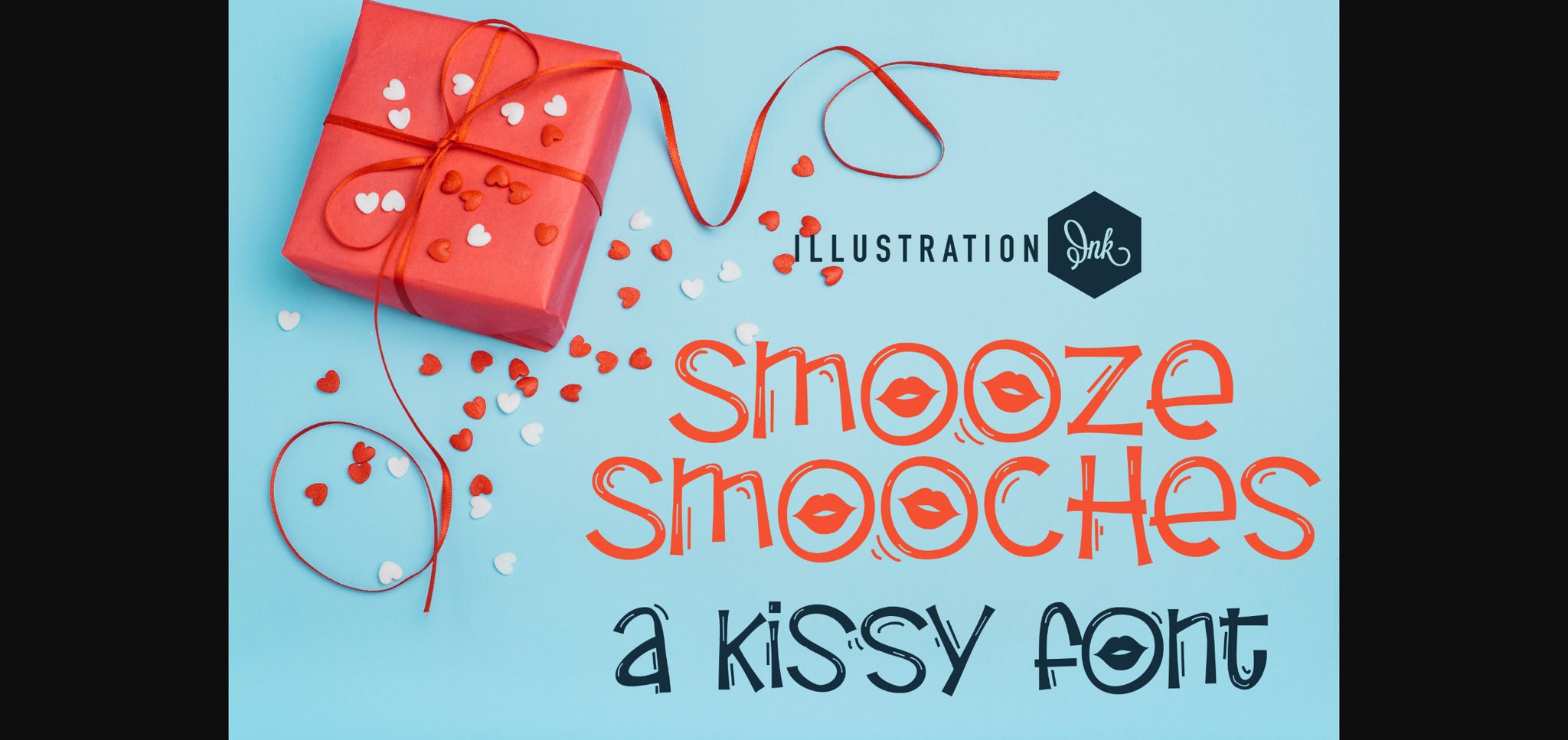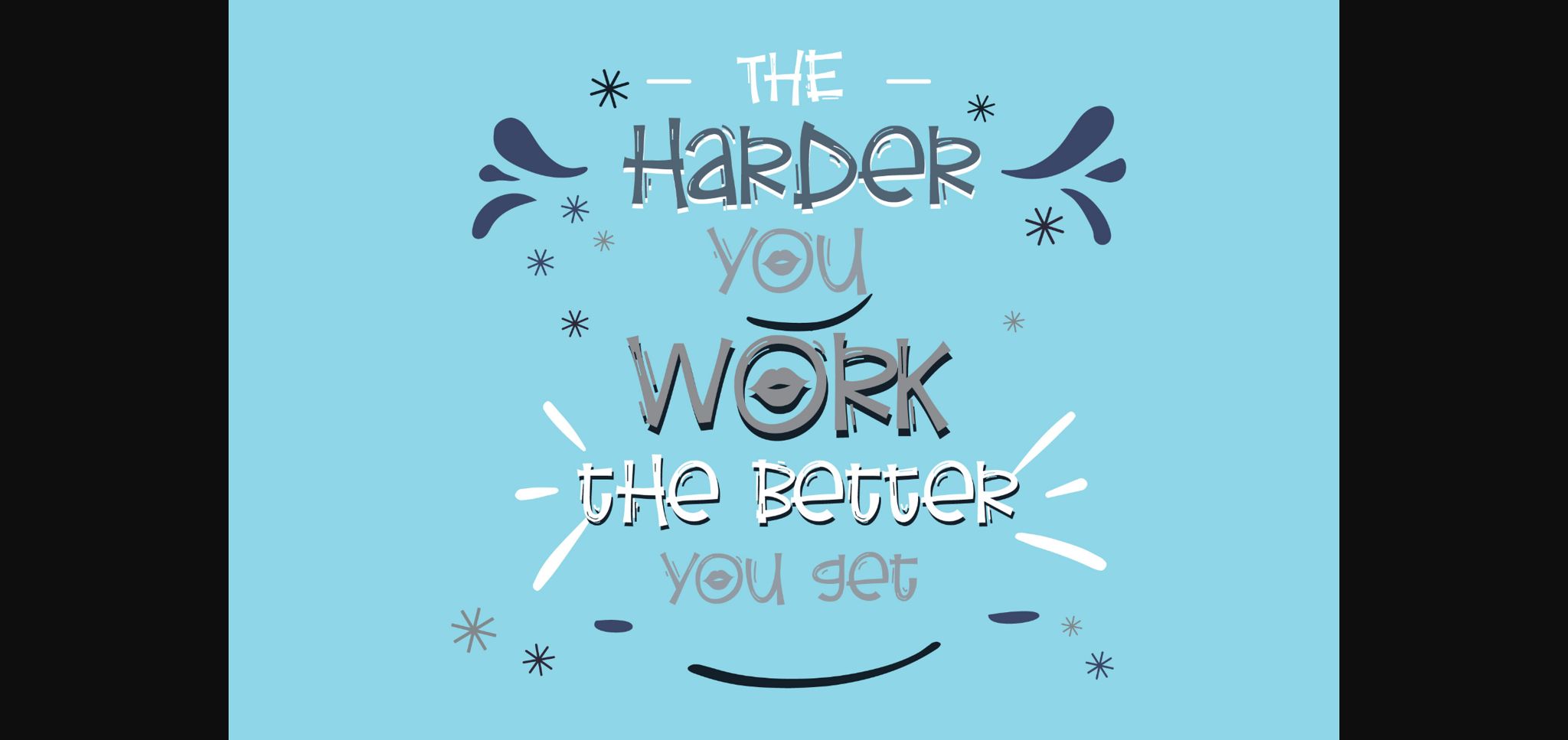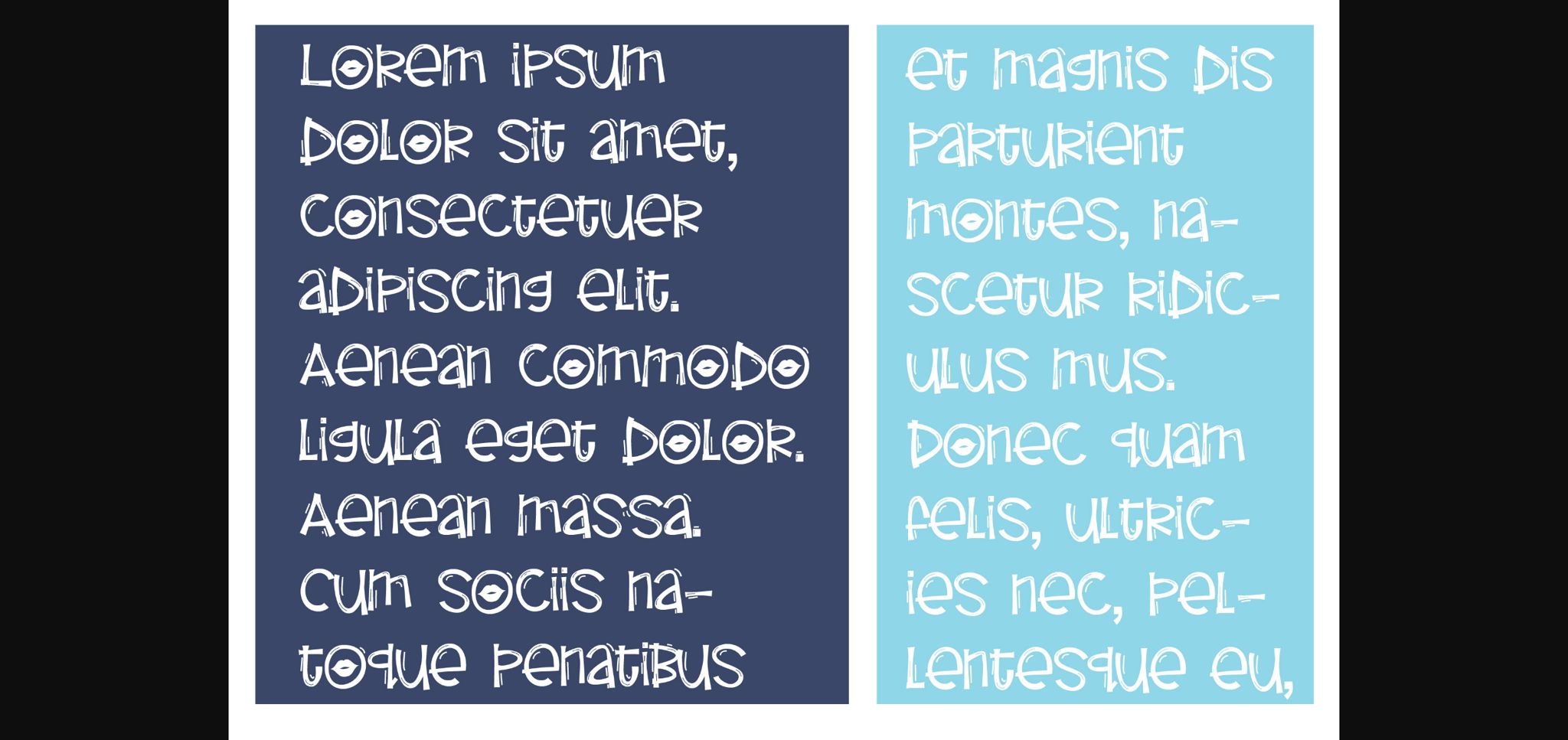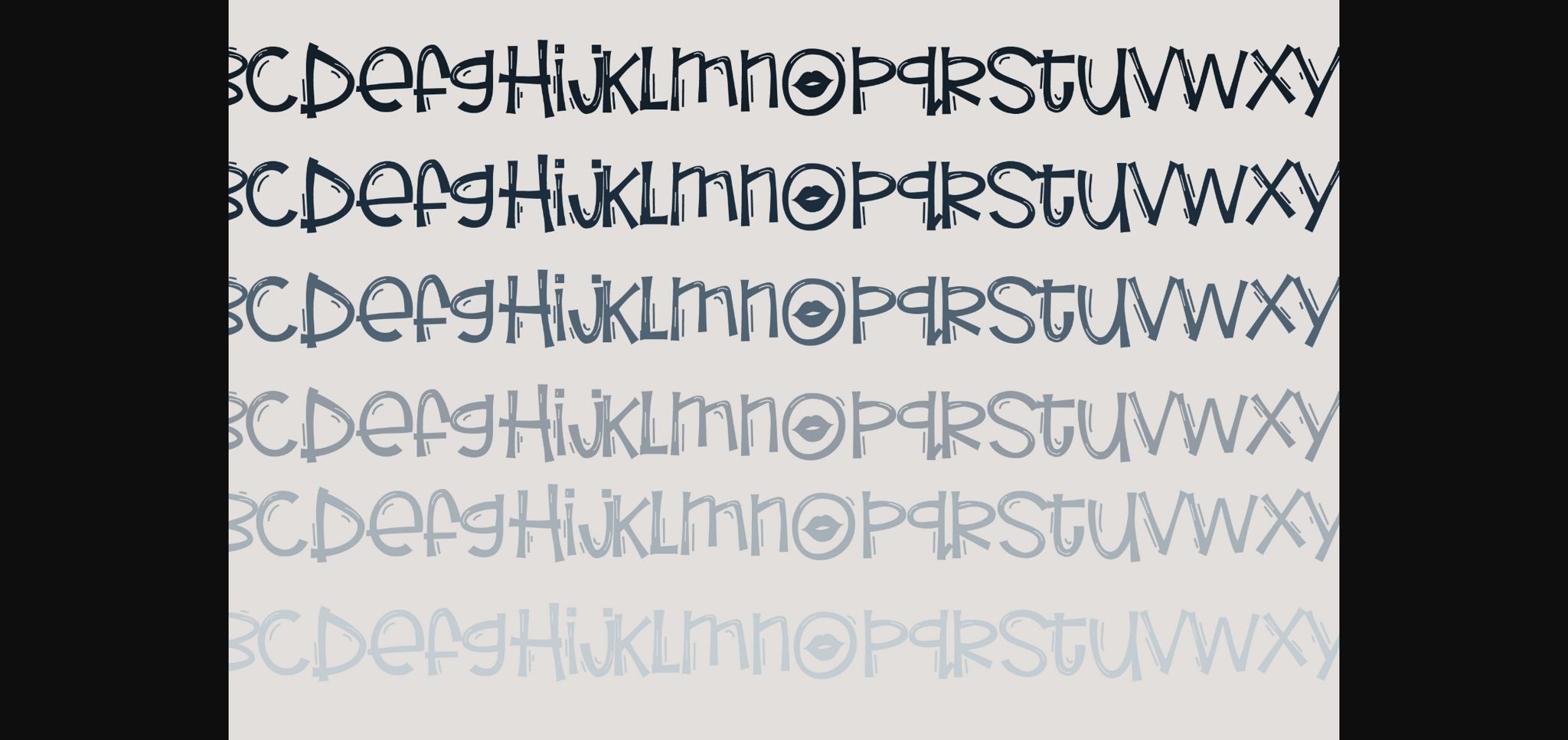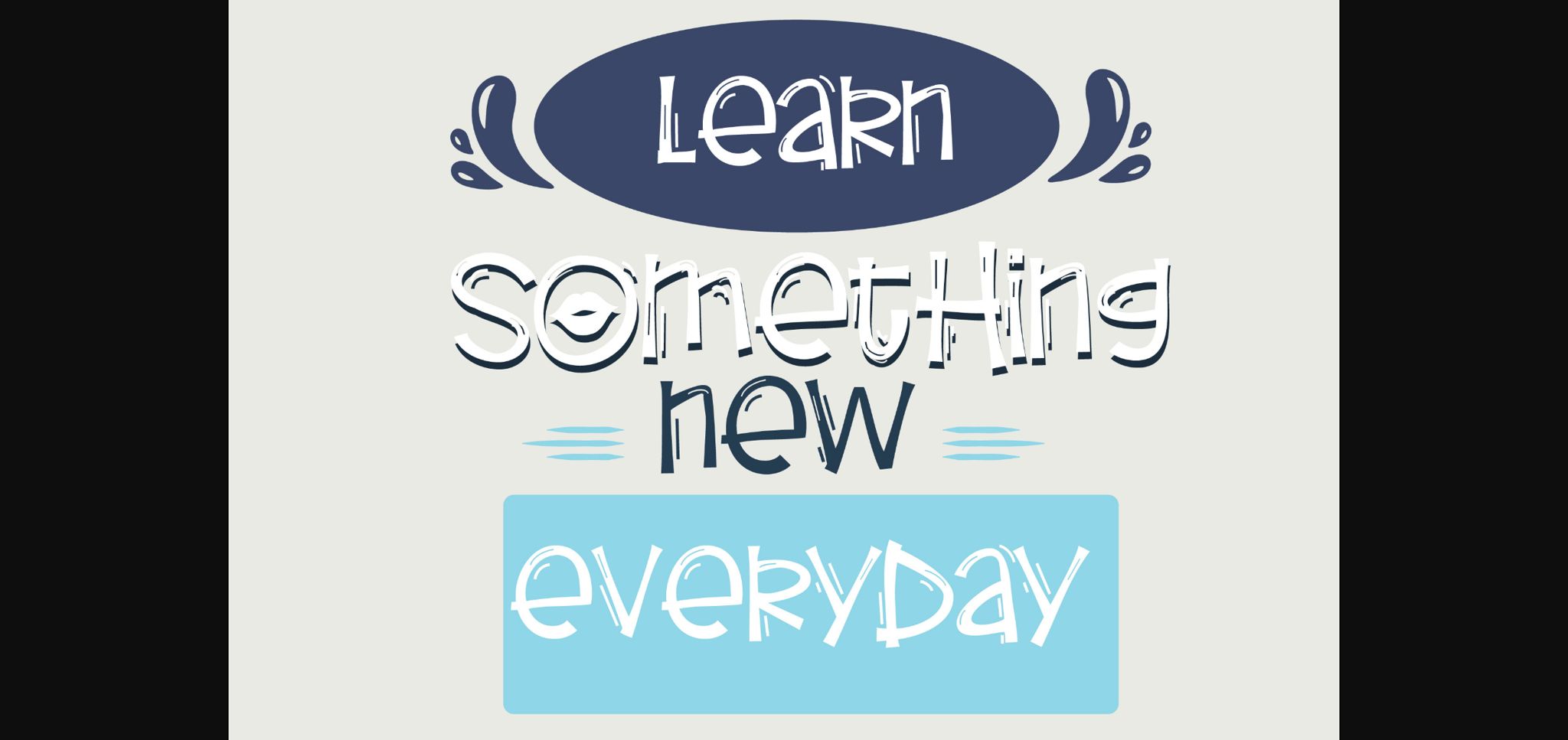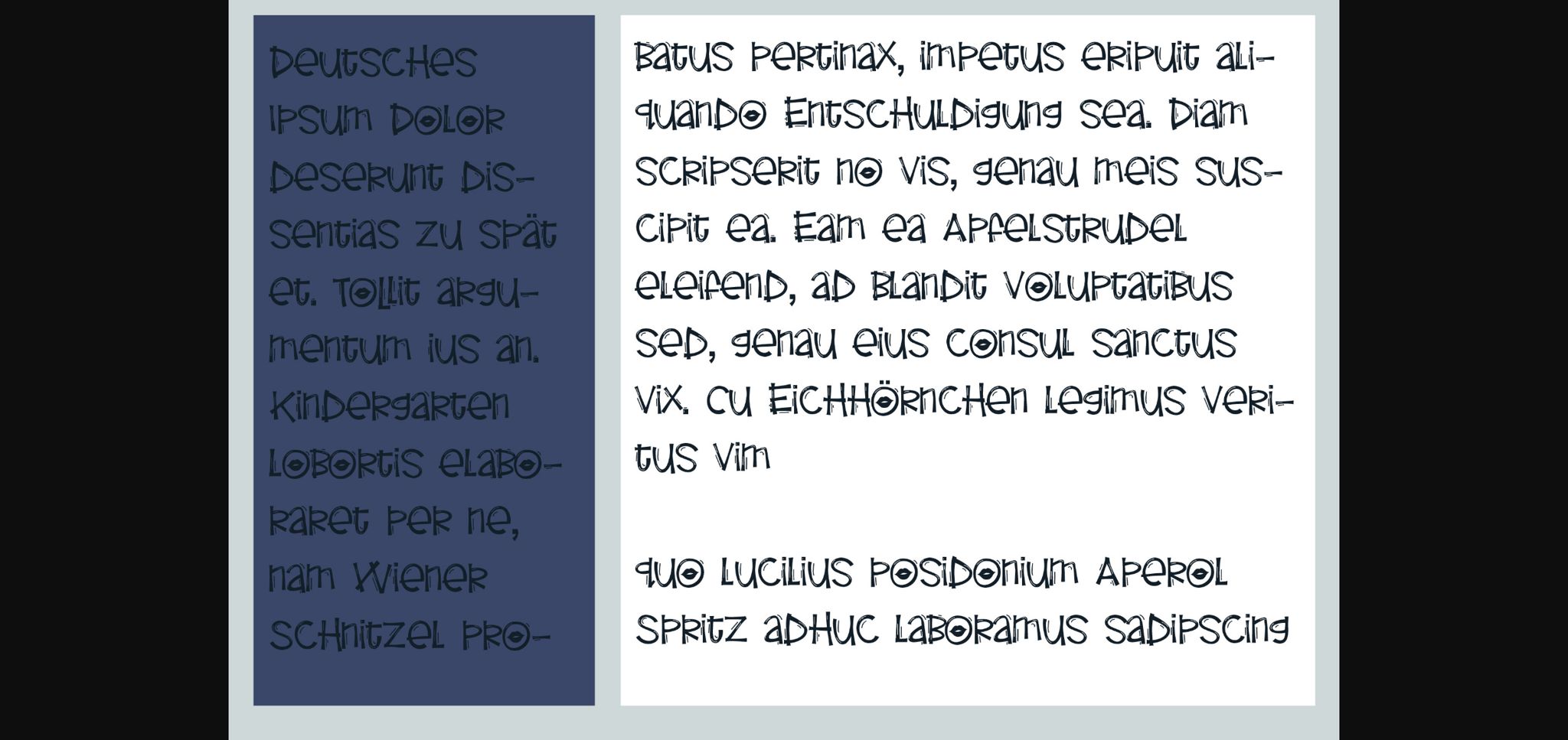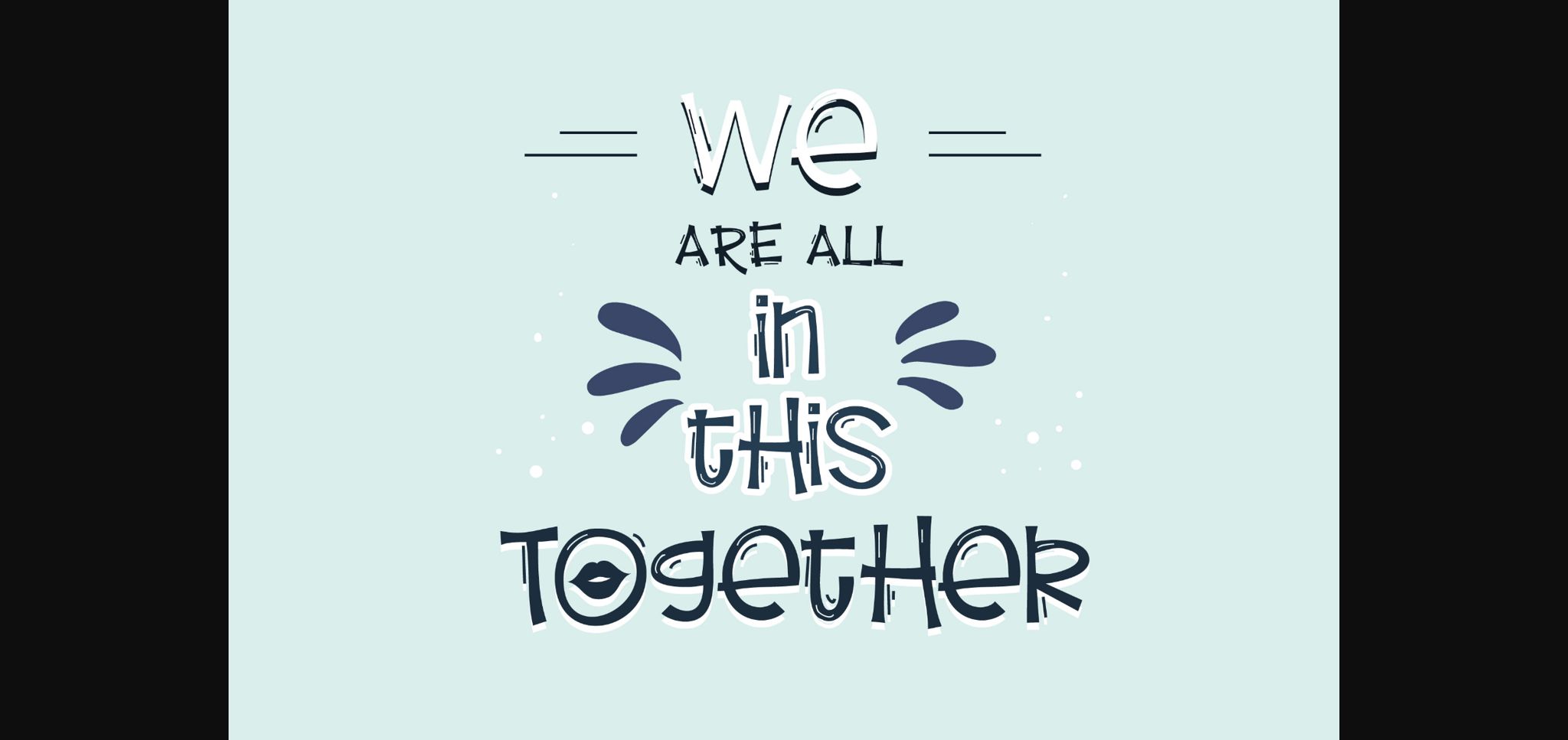
HomeSans Serif FontsSmooze Smooches Font Sans Serif Fonts Smooze Smooches Font FacebookXPinterestWhatsApp 1 of 9 ... Smooze Smooches Font Poster 2... Smooze Smooches Font Poster 3... Smooze Smooches Font Poster 4... Smooze Smooches Font Poster 5... Smooze Smooches Font Poster 6... Smooze Smooches Font Poster 7... Smooze Smooches Font Poster 8... Smooze Smooches Font Poster 9... About Smooze Smooches Font This hand-crafted sans serif font features kisses throughout. No matter the topic, this font will be an incredible asset to your fonts’ library, as it has the potential to elevate any creation. DOWNLOAD NOW People also explored Wilmas Font Brilliant Signature Font Nestone Font Ahsley Ezpaqueltra Font Pumpkin Pastel Font Rontale Font Sheyla Blacky Font Copperplate Class Light 281 0 TagsSmooze Smooches Font Previous articleCampaigh FontNext articleSteakhouse Font LEAVE A REPLY Cancel reply Comment: Please enter your comment! Name:* Please enter your name here Email:* You have entered an incorrect email address! Please enter your email address here Website: Save my name, email, and website in this browser for the next time I comment. Personal Use Free Caramel Latte Personal Use Free Read more about this font Beat My Guest Personal Use Free Read more about this font BD AsciiMax Personal Use Free Read more about this font Cadosa Personal Use Free Read more about this font BLOG Free vs Paid Fonts: Why Investing in Premium Fonts Is Worth It Free vs Paid Fonts: Why Premium Fonts Are Worth It in 2025 The debate of free vs paid fonts continues in the design world. While... Best Fonts for T-Shirt Design – Top 2025 Picks Where to Buy American Fonts Online in 2024 Top 10 Handwritten Fonts That Elevate Your Designs